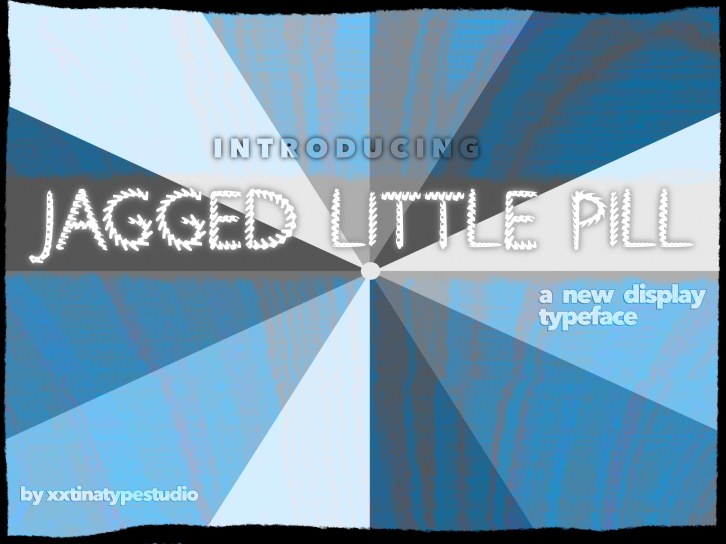
Jagged Little Pill is a unique decorative typeface featuring 107 glyphs. It is perfect for product packaging, branding project, magazine covers, social media, wedding, or just used to express words above the background.